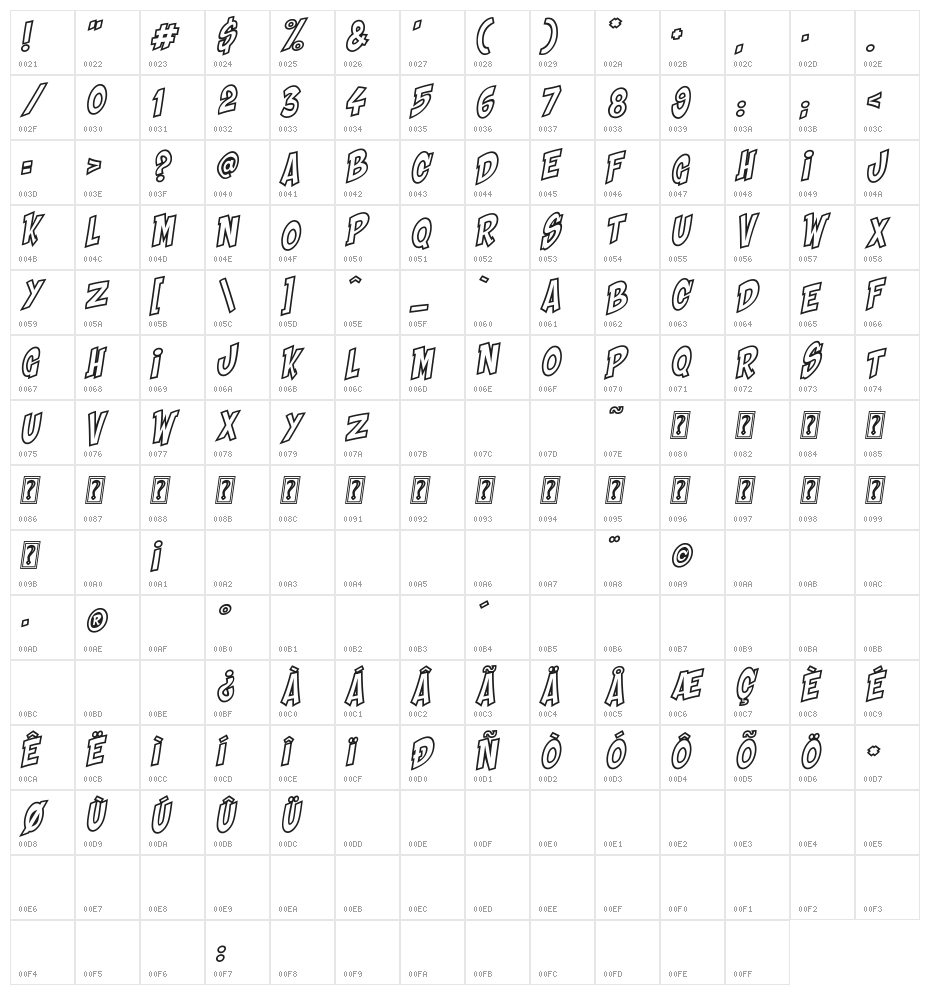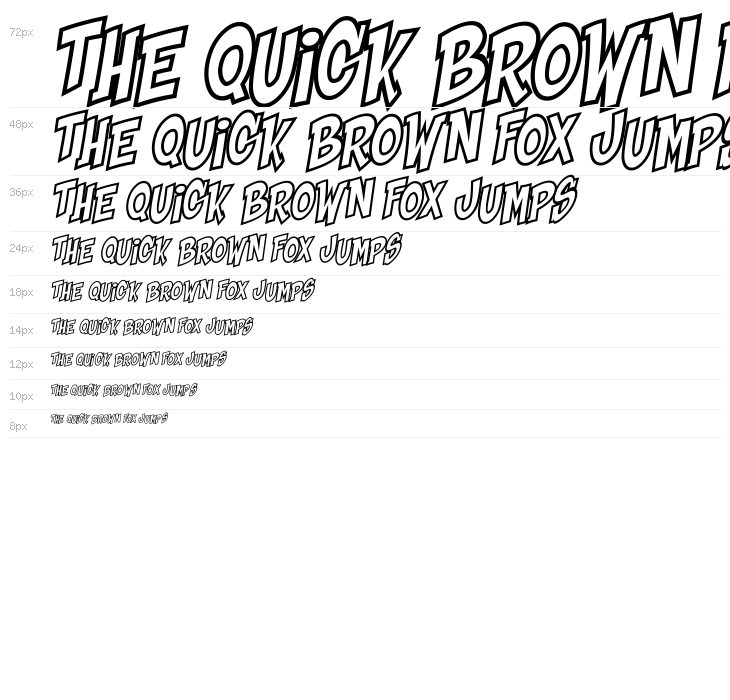
Shaka Pow Hollow Font
Shaka Pow Hollow Description
This font features a bold and dynamic style with a hollow, outlined design that gives it a striking and energetic appearance. The letters are slightly slanted, adding a sense of movement and excitement. The uppercase and lowercase characters maintain a consistent style, with sharp angles and thick outlines that enhance their visibility. The numbers and special characters follow the same design principles, ensuring a cohesive look across all elements. This font is perfect for projects that require a bold statement and a playful, comic-like aesthetic.
| Overall Style | Playful, Energetic, Comic |
| Proposed Projects | Ideal for comic books, posters, children's books, and playful branding. |